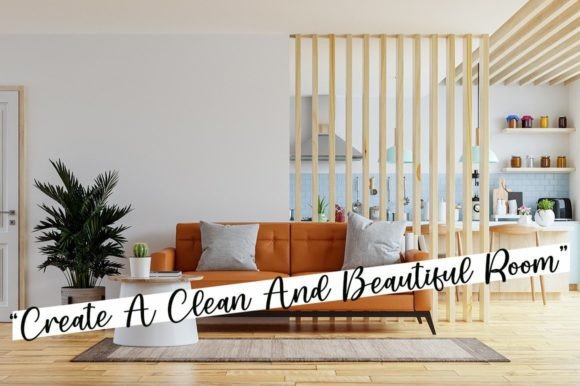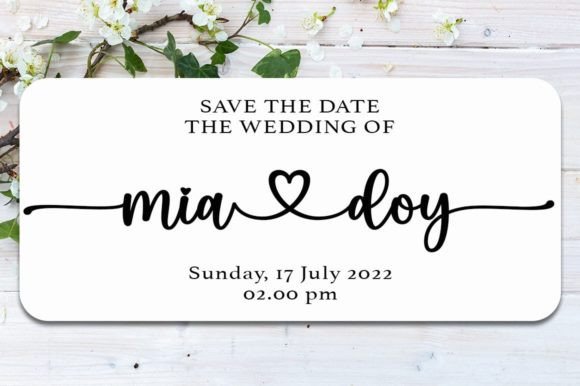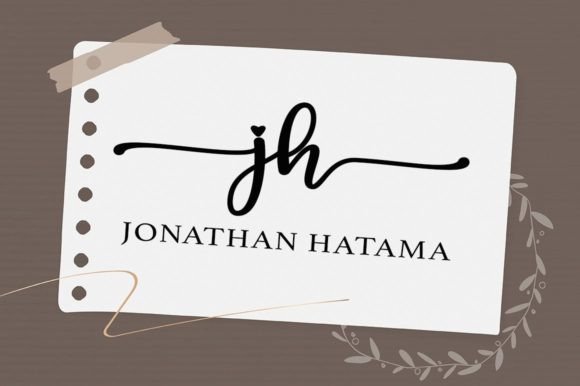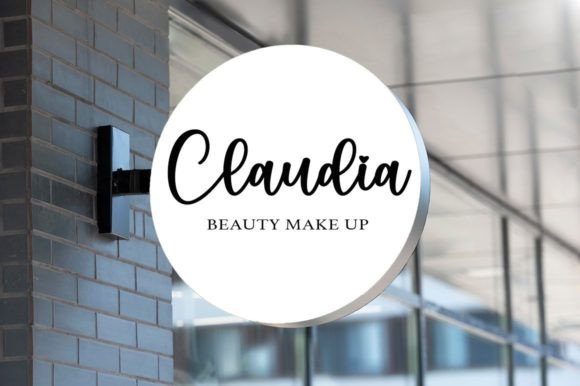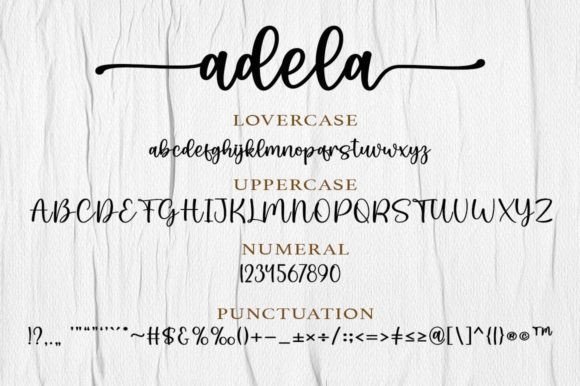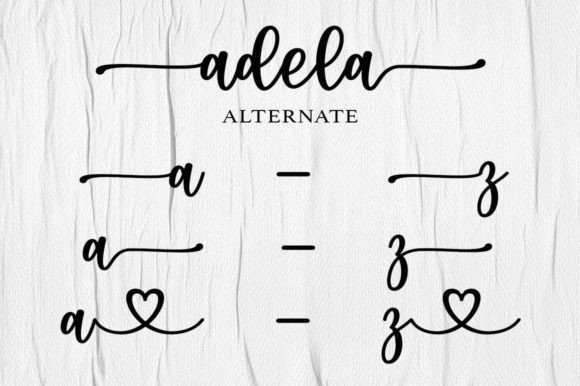
Introducing Adela Font: The Epitome of Elegance and Charm
Are you a designer or crafter looking for a font that exudes elegance and sophistication? Look no further than Adela Font. This beautiful handwritten font is perfect for a variety of design projects, from wedding invitations to business cards, and is sure to add a touch of charm and refinement to any design.
The Beauty of Adela Font
Adela Font is a stunning script font that feels equally charming and elegant. Its flowing lines and delicate curves make it perfect for designs that require a personal and handwritten touch. Whether you’re creating wedding invitations, thank you cards, quotes, greeting cards, logos, or business cards, Adela Font is the perfect choice.
One of the best things about Adela Font is its versatility. It can be used for a wide range of design projects, from formal events like weddings and galas to more casual designs like party invitations and greeting cards. Its elegant and refined appearance makes it perfect for designs that require a touch of sophistication, while its charming and playful feel makes it suitable for more whimsical designs.
Adela Font is PUA (Private Use Area) encoded, which means that you can access all of the glyphs and swashes with ease. This makes it easy to customize your designs and add your own personal touch. With PUA encoding, you can easily access alternative characters, ligatures, and swashes, allowing you to create unique and eye-catching designs.
Adela Font is perfect for designers and crafters who want to add a personal touch to their designs. Whether you’re creating digital designs or handmade crafts, Adela Font is the perfect choice. Its elegant and refined appearance makes it perfect for designs that require a touch of sophistication, while its charming and playful feel makes it suitable for more whimsical designs.
Why Choose Adela Font?
So why choose Adela Font for your design projects? Here are just a few reasons:
- Elegant and refined appearance: Adela Font has a beautiful, elegant appearance that is perfect for designs that require a touch of sophistication.
- Charming and playful feel: Adela Font also has a charming and playful feel that makes it suitable for more whimsical designs.
- Versatility: Adela Font can be used for a wide range of design projects, from formal events to casual designs.
- PUA encoding: Adela Font is PUA encoded, making it easy to access all of the glyphs and swashes.
Tips for Using Adela Font
Here are a few tips for using Adela Font in your design projects:
- Use it for headings and titles: Adela Font is perfect for headings and titles, where its elegant and refined appearance can really shine.
- Mix it with other fonts: Adela Font can be paired with other fonts to create a unique and eye-catching design.
- Experiment with swashes and glyphs: With PUA encoding, you can easily access alternative characters, ligatures, and swashes to add a personal touch to your designs.
In conclusion, Adela Font is a beautiful and elegant script font that is perfect for designers and crafters who want to add a personal touch to their designs. Its versatility, charming and playful feel, and PUA encoding make it a great choice for a wide range of design projects. Whether you’re creating wedding invitations, business cards, or greeting cards, Adela Font is sure to impress.